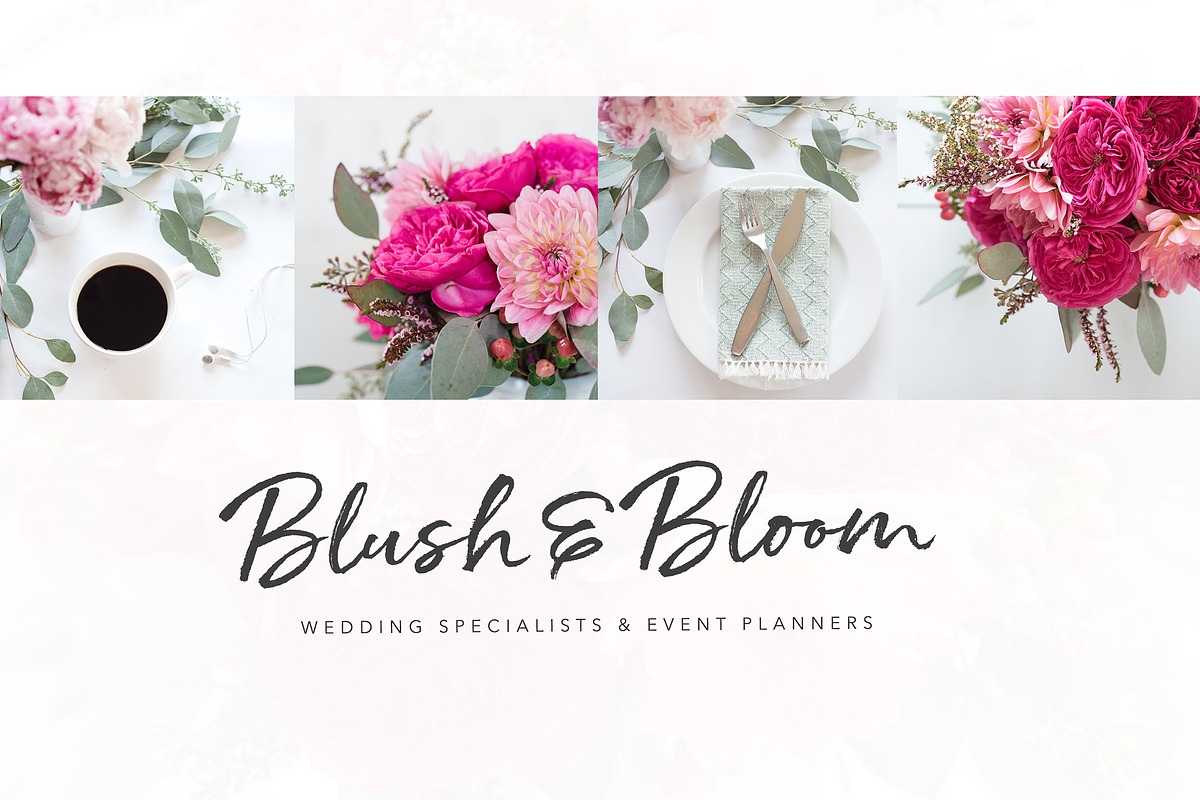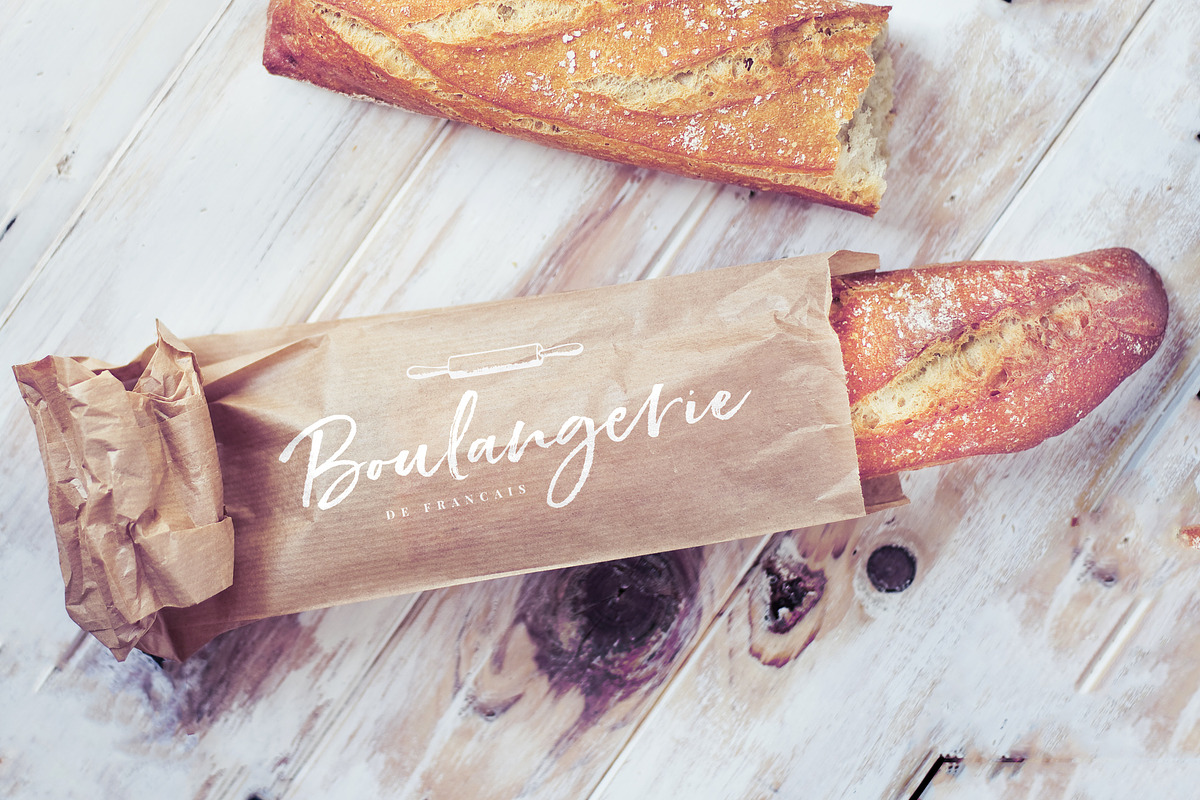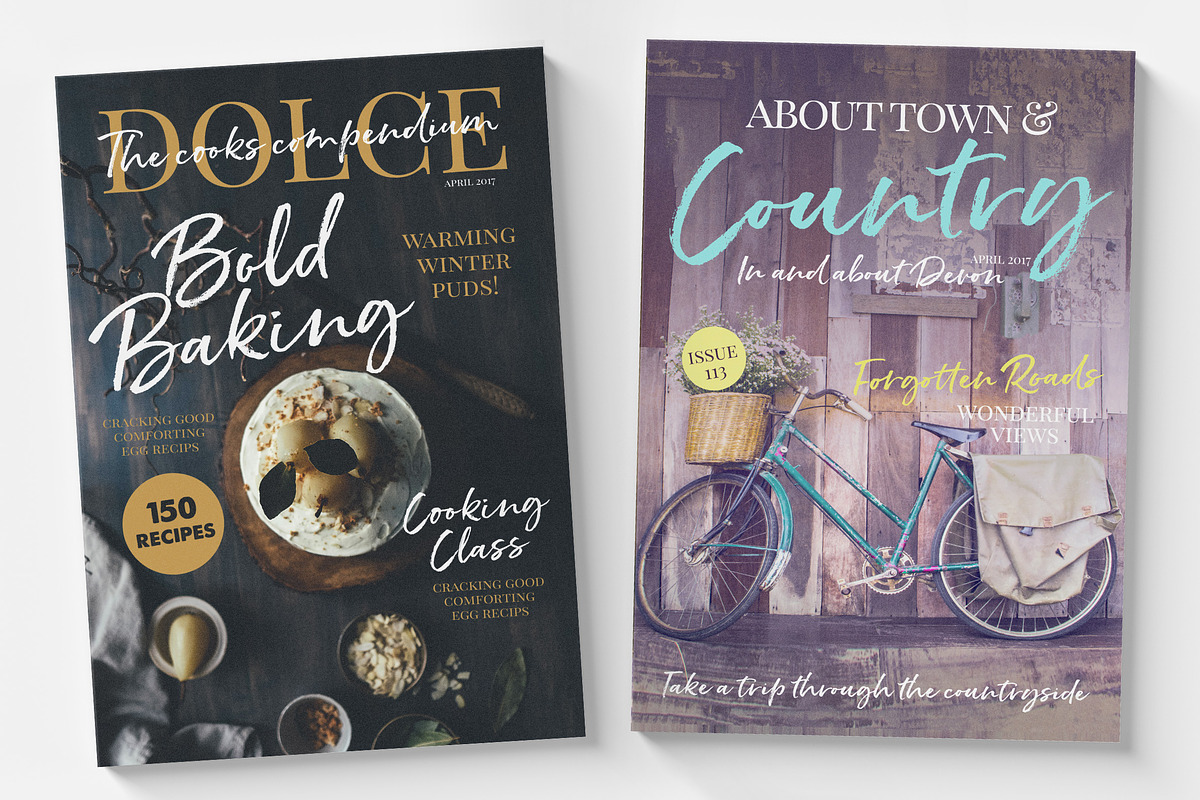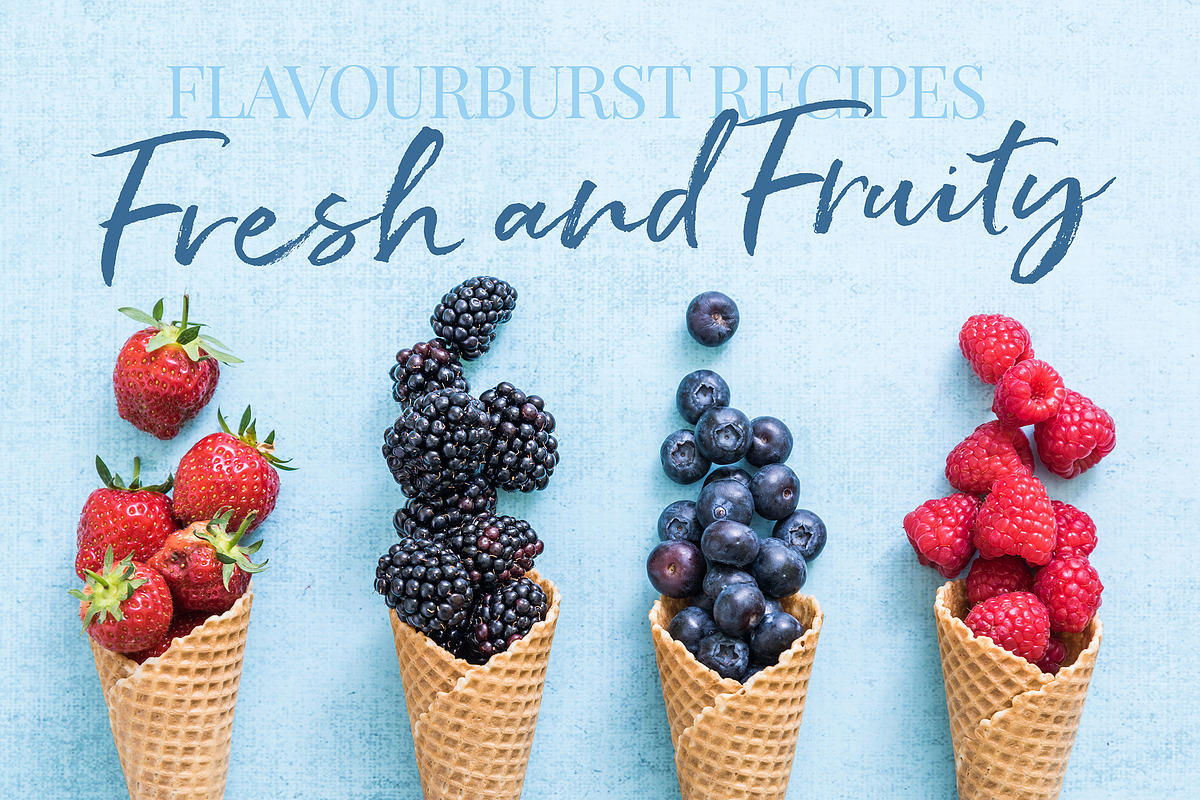
Hello Pretty Font - Nicky Laatz
Hello Pretty Font - Nicky Laatz by Nicky Laatz is a font selected for branding, posters, packaging, typography.
- AND 3 sweet little bonuses:) Hello Pretty is a hand brushed typeface, with authentic tell-tale dry brush imperfections, and oodles of altern
- ❤ ALTERNATE LETTERS AND DOUBLE-LETTER LIGATURES ❤ Hello Pretty has a large variety of alternate characters ( 2 Sets of lowercase, and 1 set
- Ligatures are also included - to bring true authenticity to your design.
- It has multilingual support with accented characters for international users.
Hello Pretty Font - Nicky Laatz by Nicky Laatz fits naturally into Branding, posters, packaging, typography.